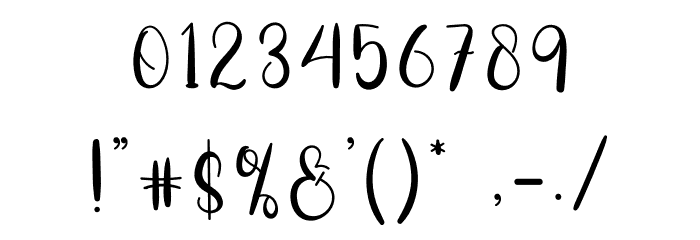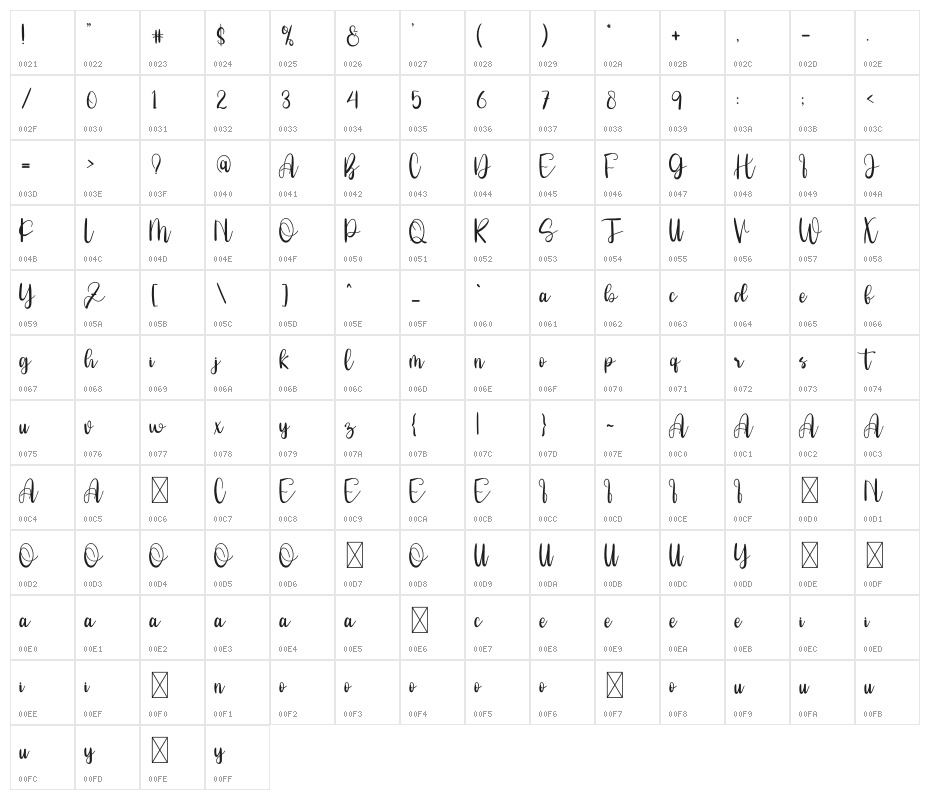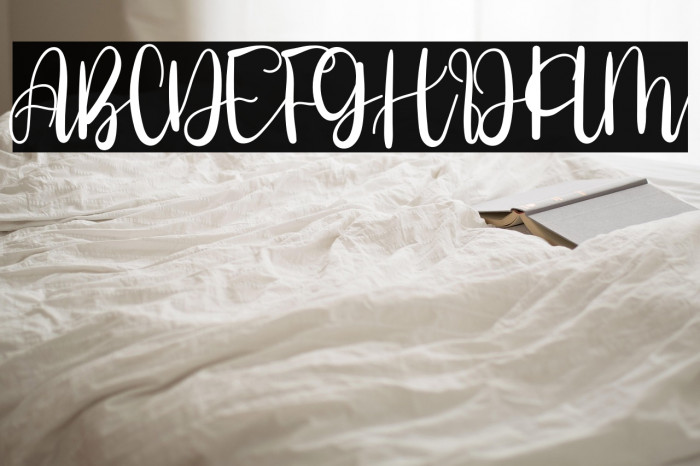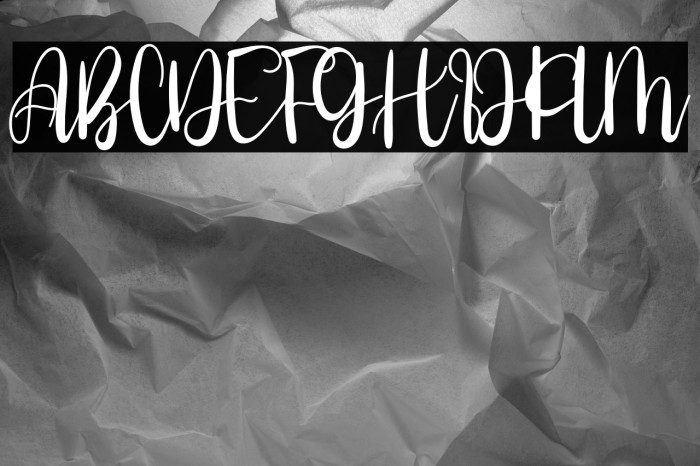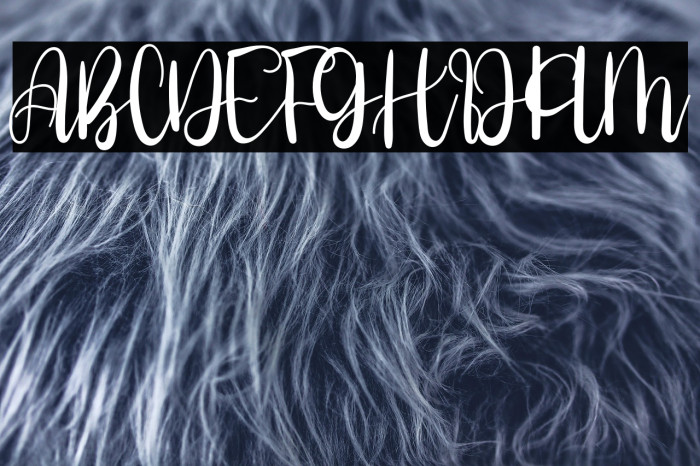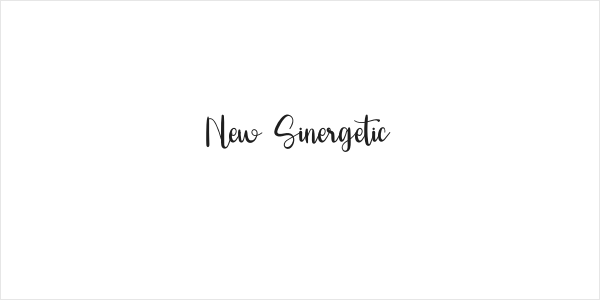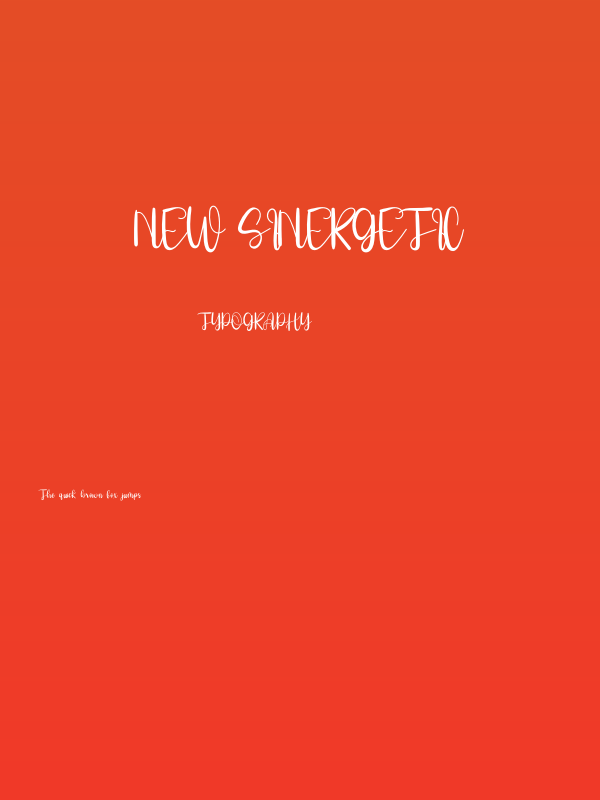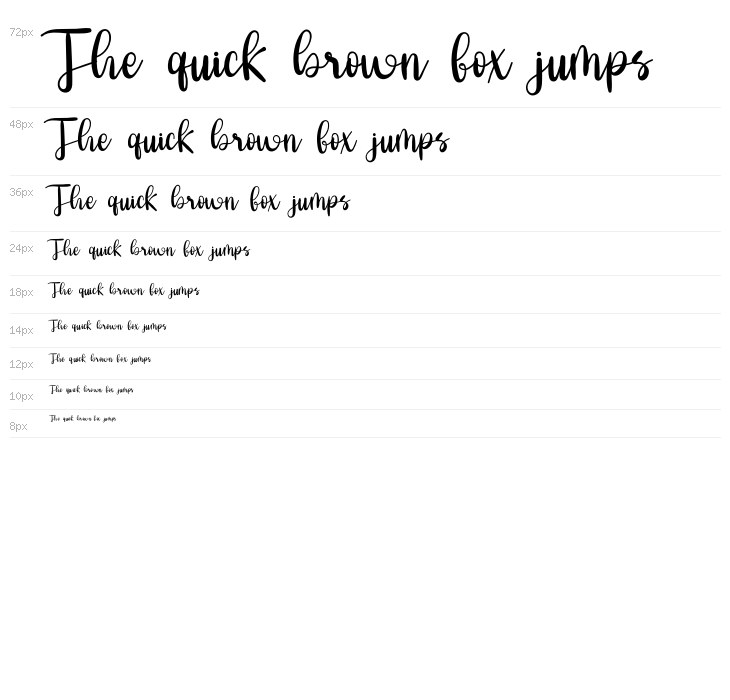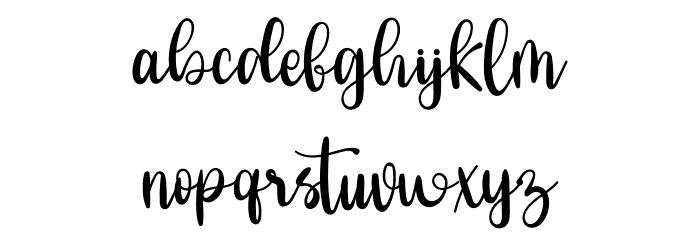
New Sinergetic Font
New Sinergetic Description
This font features a lively and expressive script style, characterized by its flowing, cursive letterforms. The uppercase letters exhibit a playful elegance with loops and swirls, while the lowercase letters maintain a cohesive and smooth appearance. The numerals are consistent with the script style, offering a harmonious blend with the alphabet. Special characters are creatively integrated, adding to the font's versatility. The overall design is both modern and whimsical, making it suitable for a variety of creative applications.
| Use Case | Logos, Invitations, Social Media |
| Proposed Projects | Ideal for wedding invitations, greeting cards, branding projects, and social media graphics. |